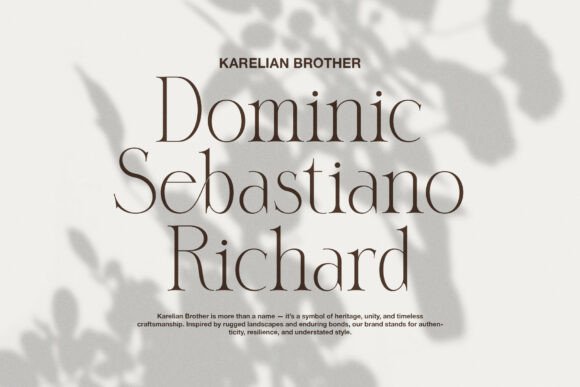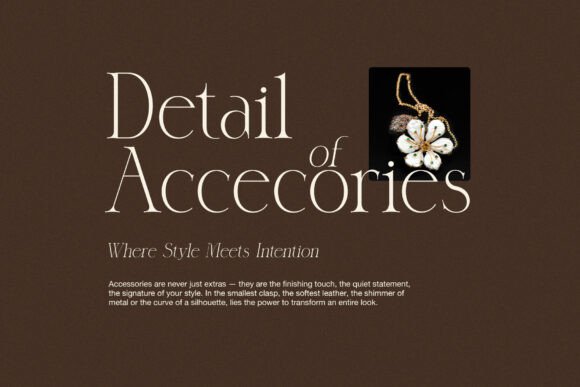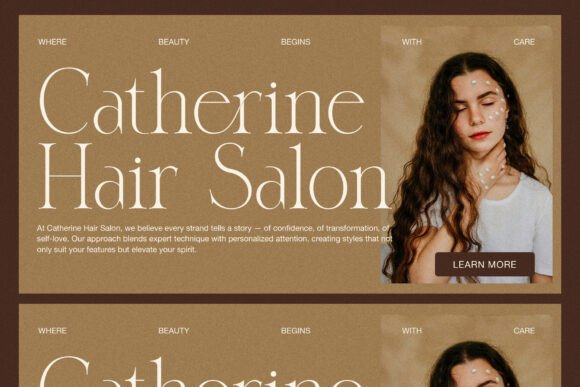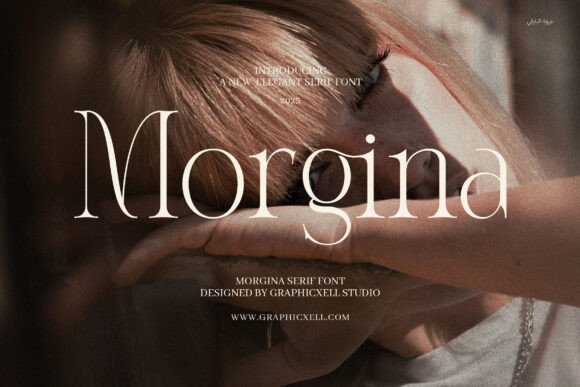
Introduction to Morgina Font
Morgina Elegant Serif Font is a refined blend of classic charm and contemporary sophistication, crafted for designers who crave timeless elegance with a modern twist.
With its graceful curves, high-contrast strokes, and distinctive serifs, Morgina brings a luxurious feel to any design project Whether you’re creating a bold brand identity or adding a touch of class to editorial layouts, this font delivers both beauty and versatility.
Key Features of Morgina Font
Why Choose Morgina Font?